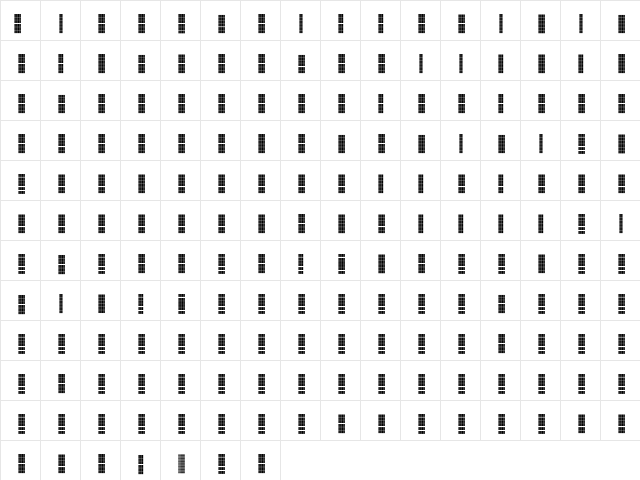
Luggagetag Grid
Style: Grid
Luggagetag Family
Design Context for Luggagetag
Luggagetag is a composed and adaptable typeface that performs quietly and consistently across a wide range of design contexts.